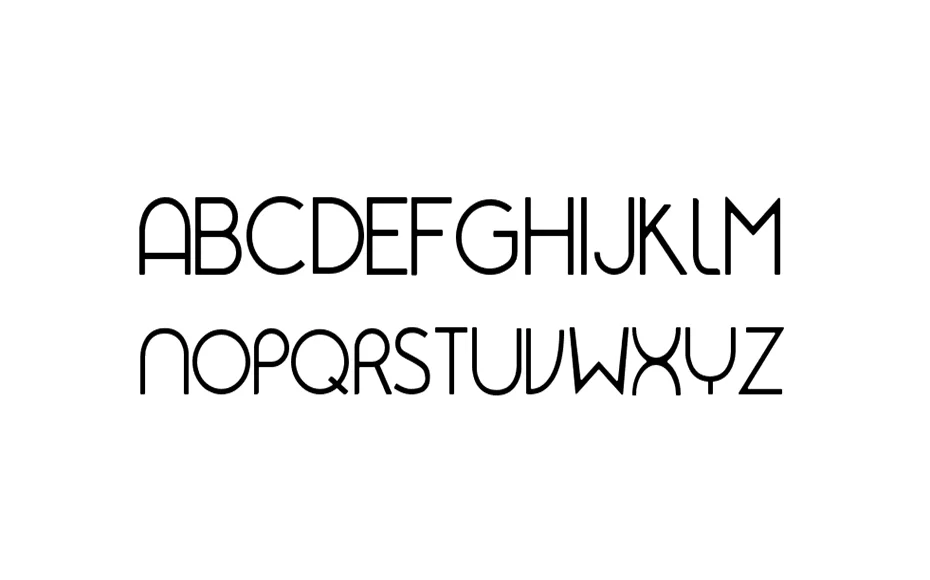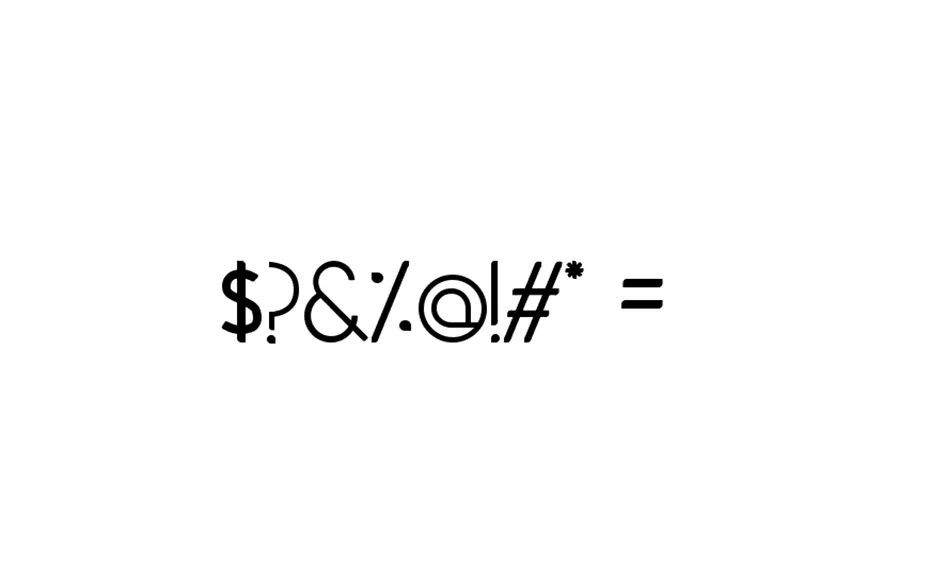
Check out this amazing and cool sans serif typeface. Citrica Font is based on the freshness of citrus fruits. Ideal for display, illustrations, posters, logos, t-shirts, titles, and more.
The designer has added a romantic and elegant touch to it to make it unique. It aims to integrate perfectly and allows you to create stunning designs quickly and efficiently.
Therefore, all the characters of this font have a sans serif appearance with wonderful finishing edges. It is available for download at Fonts Bee.
This particular font family is a strong collection of clean unique and new fonts.
This is a great choice if you’re looking for logo designs, posters, banners, headlines, logos, brochures, game titles, product designs, product packaging, emblems, book covers, flyers, magazines, movie posters, and many other places.
It comes in a single regular style that possesses the Truetype file formats this fine quality font has up to 168 glyphs. Along with the multiple sets of figures, currency signs, and ligatures.